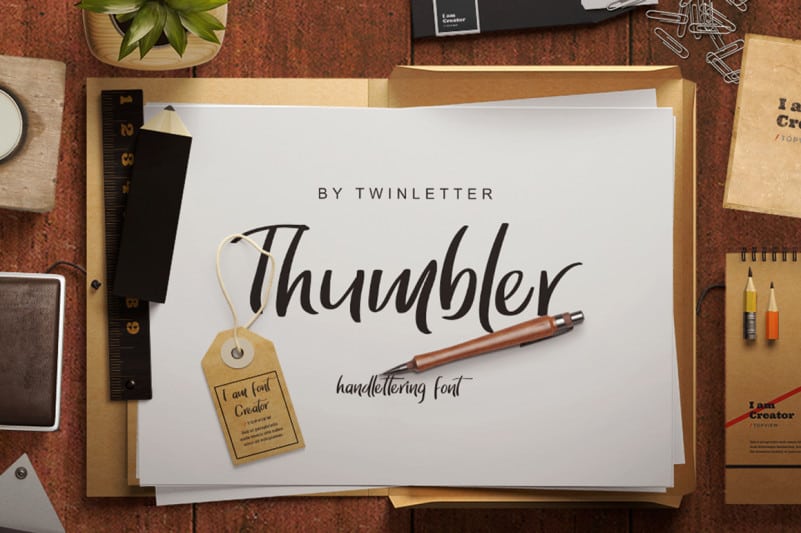
Thumbler Script Font
Thumbler Script Font is a magical font with a touch of elegance, created carefully by the use of a brush pen. This handwritten style allows you to create stunning design projects, be it logos, signatures, labels, packaging designs, blog headlines, heading titles, movie titles or more!